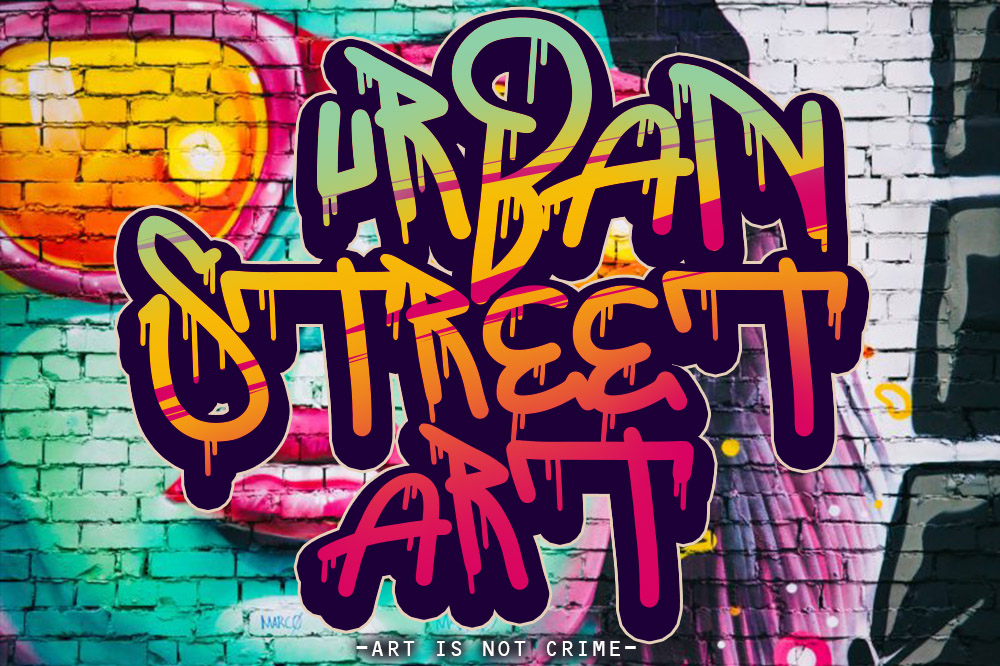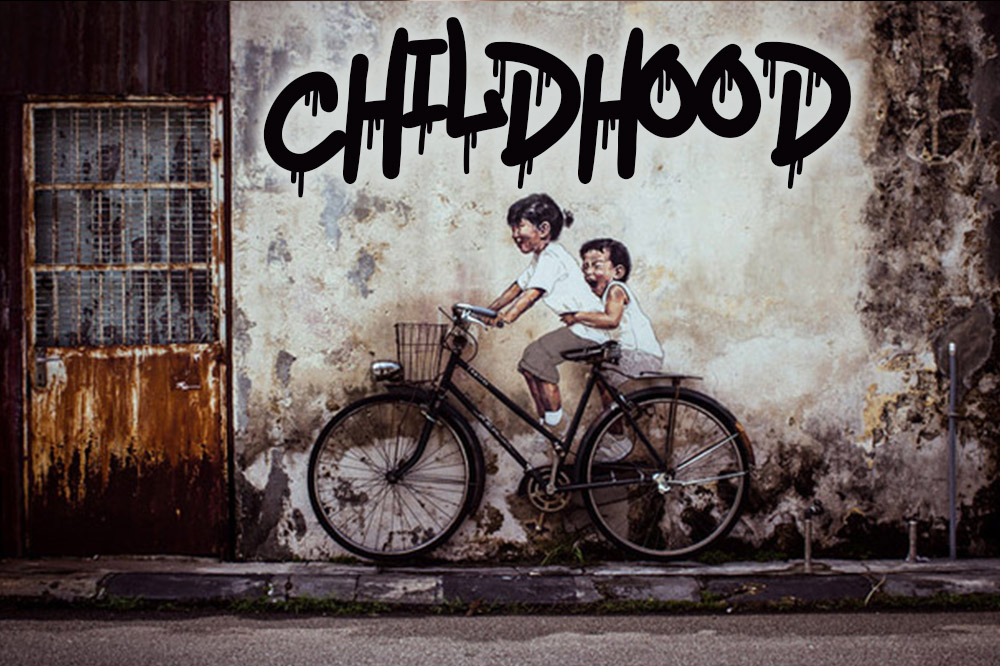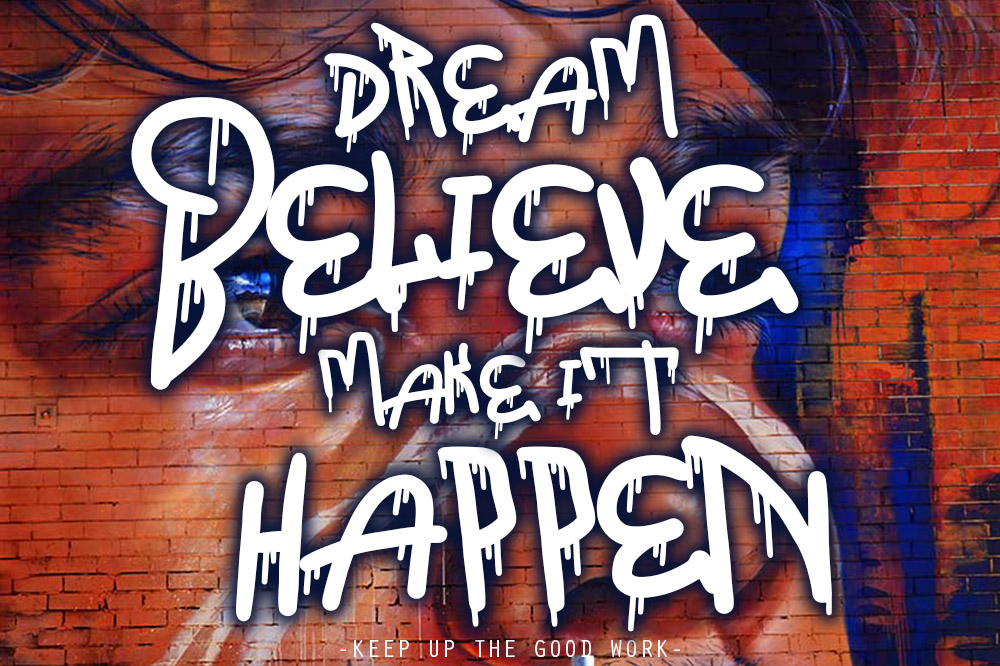
The Boomber Font
About The Boomber Font
The Boomber is a striking graffiti font. It’s perfect for t-shirt designs, stickers, and much more! It’s very easy to use, which allows everybody to design unique graffiti designs.